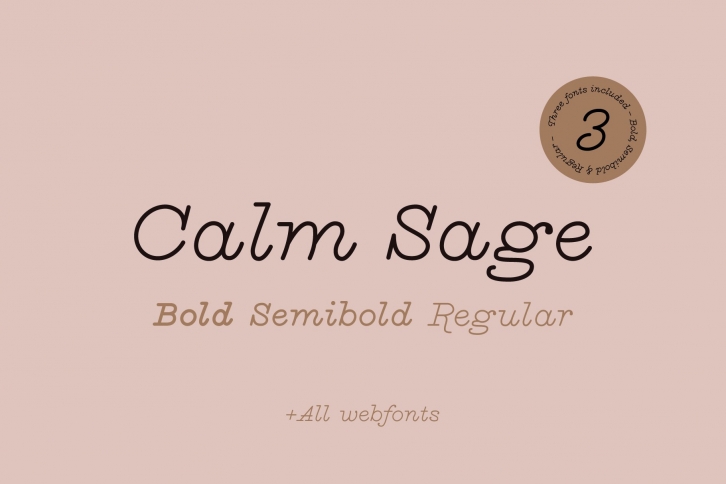
Category: Fonts Slab Serif
Do you love elegant fonts? These lovely fonts where created for stationery, blogs and branding. The fonts have all kind of Latin caracters and come with all the accents and it's own set of glyphs that can be accessed via the glyphs panel in your favorite software or with OpenType features turned on.
• Calm Sage Bold
• Calm Sage Semibold
• Calm Sage Italic